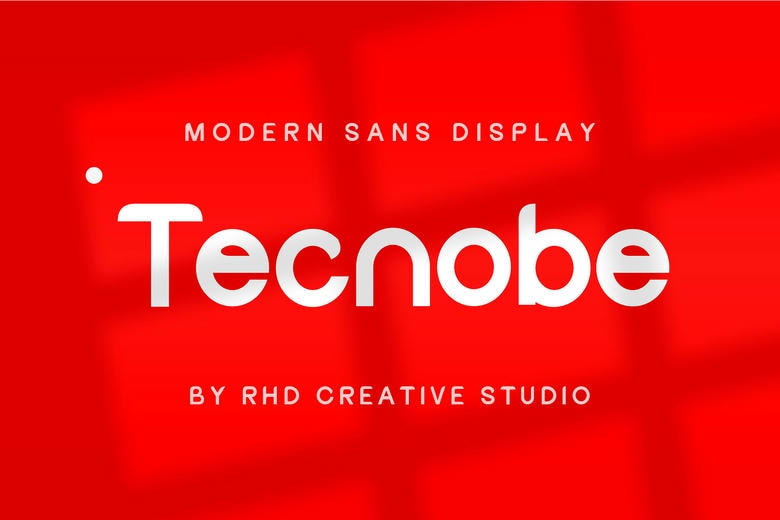
Tecnobe Font
Tecnobe is a sleek and futuristic sans serif display font designed for cutting-edge branding, UI/UX design, tech startups, and modern advertising. With its clean geometric lines and minimalistic character forms, Tecnobe brings a contemporary, professional tone to any layout. Perfect for everything from tech products to modern logos and stylish editorial work.
Tecnobe Sans Serif Font